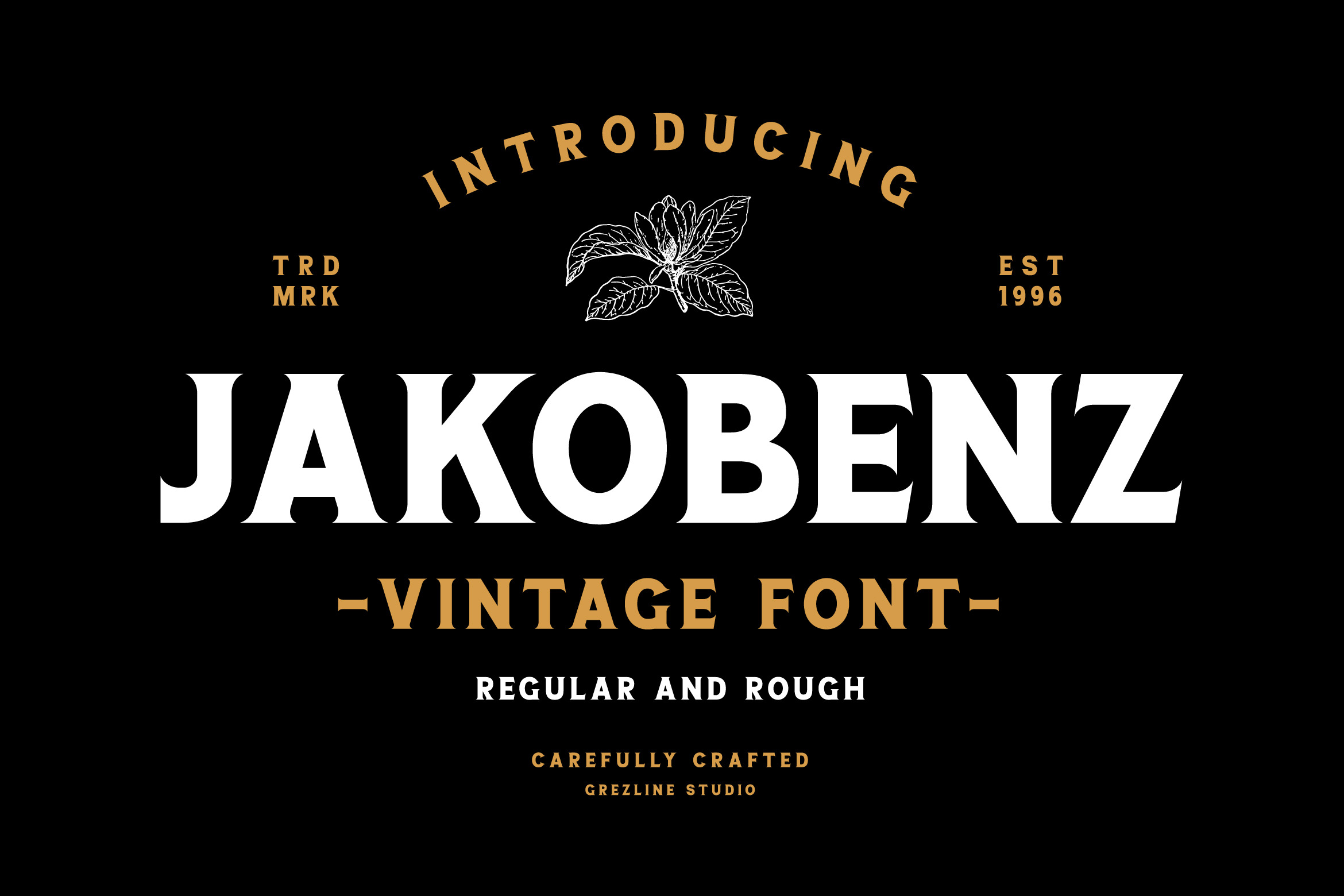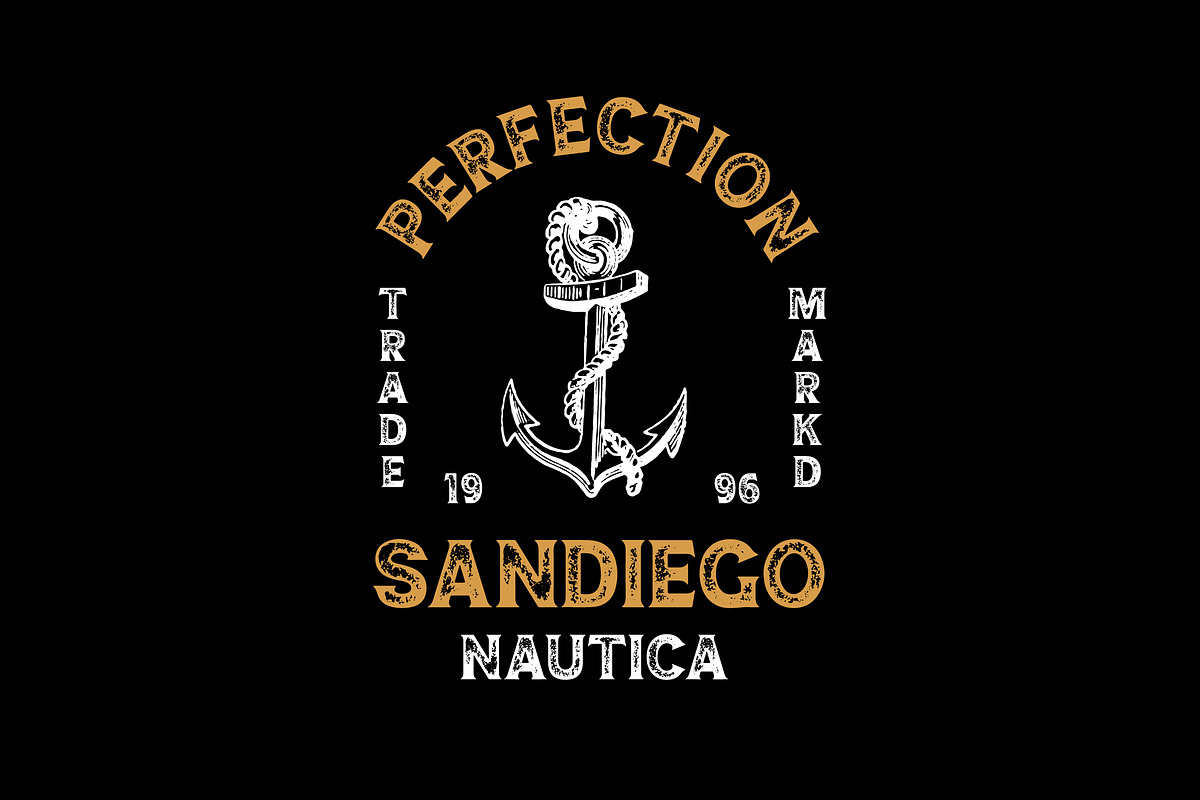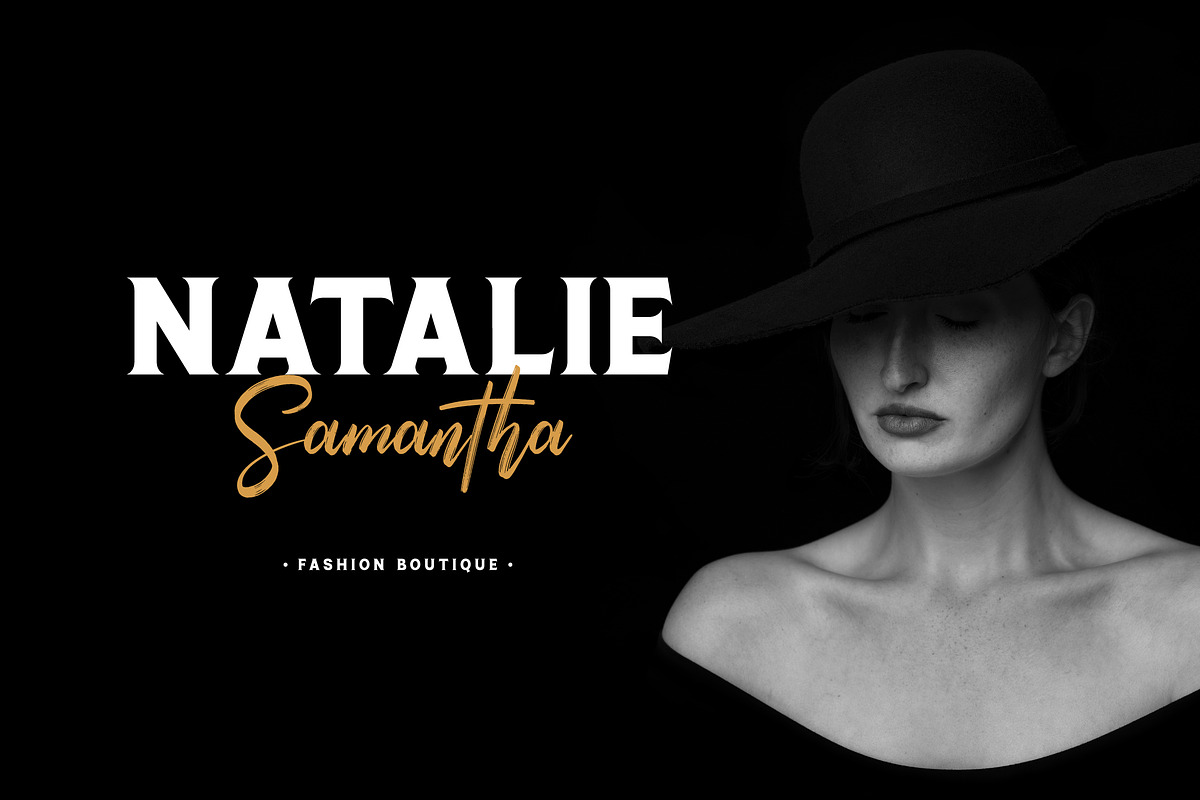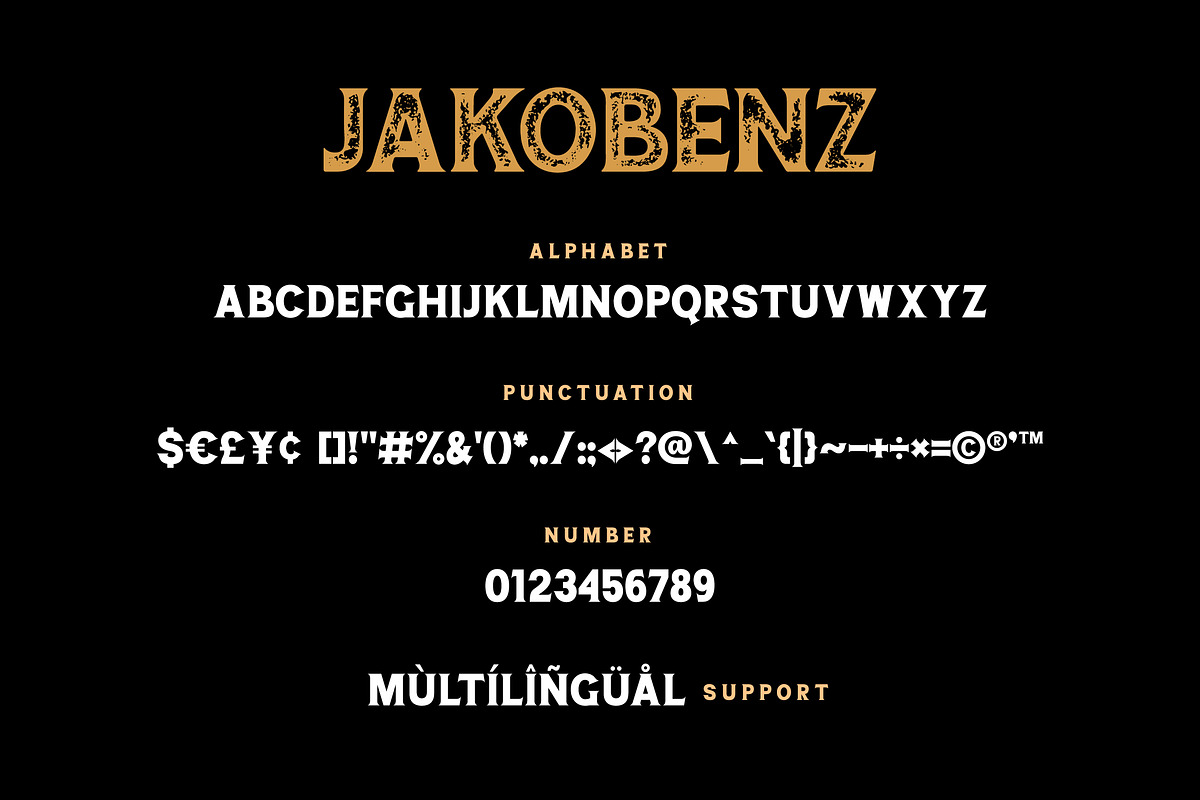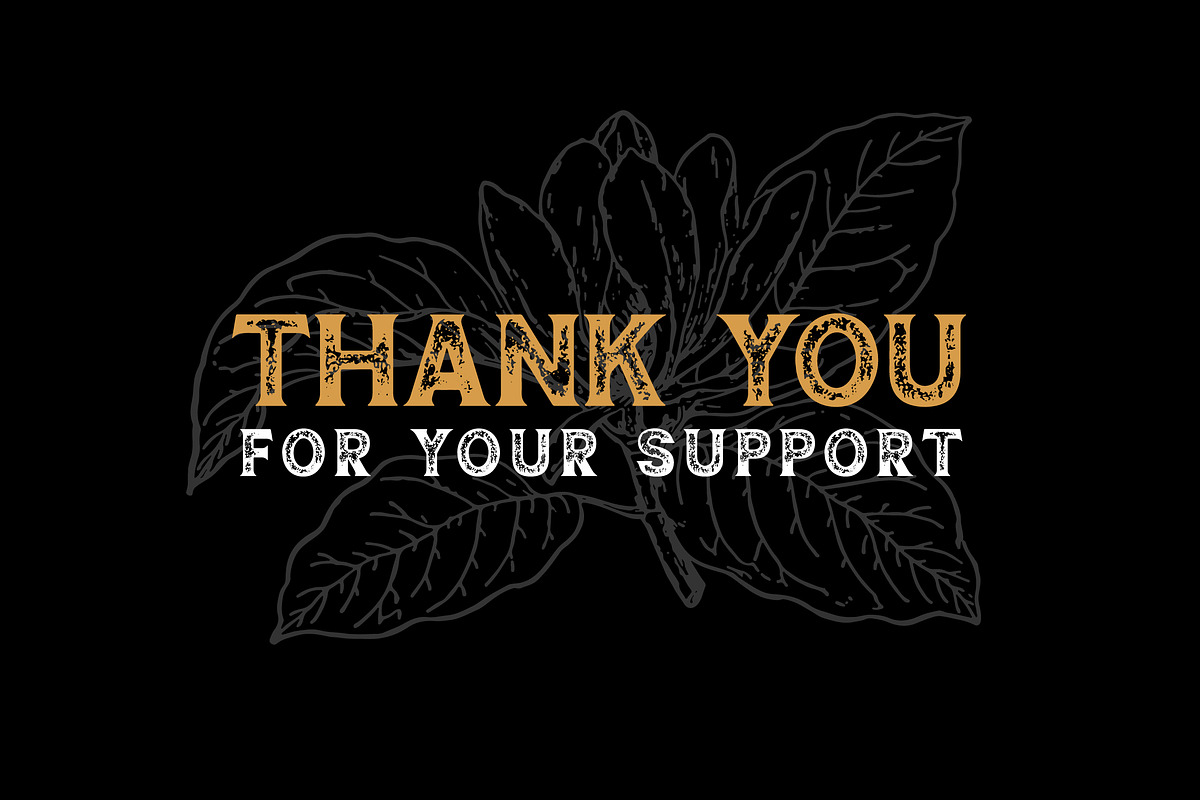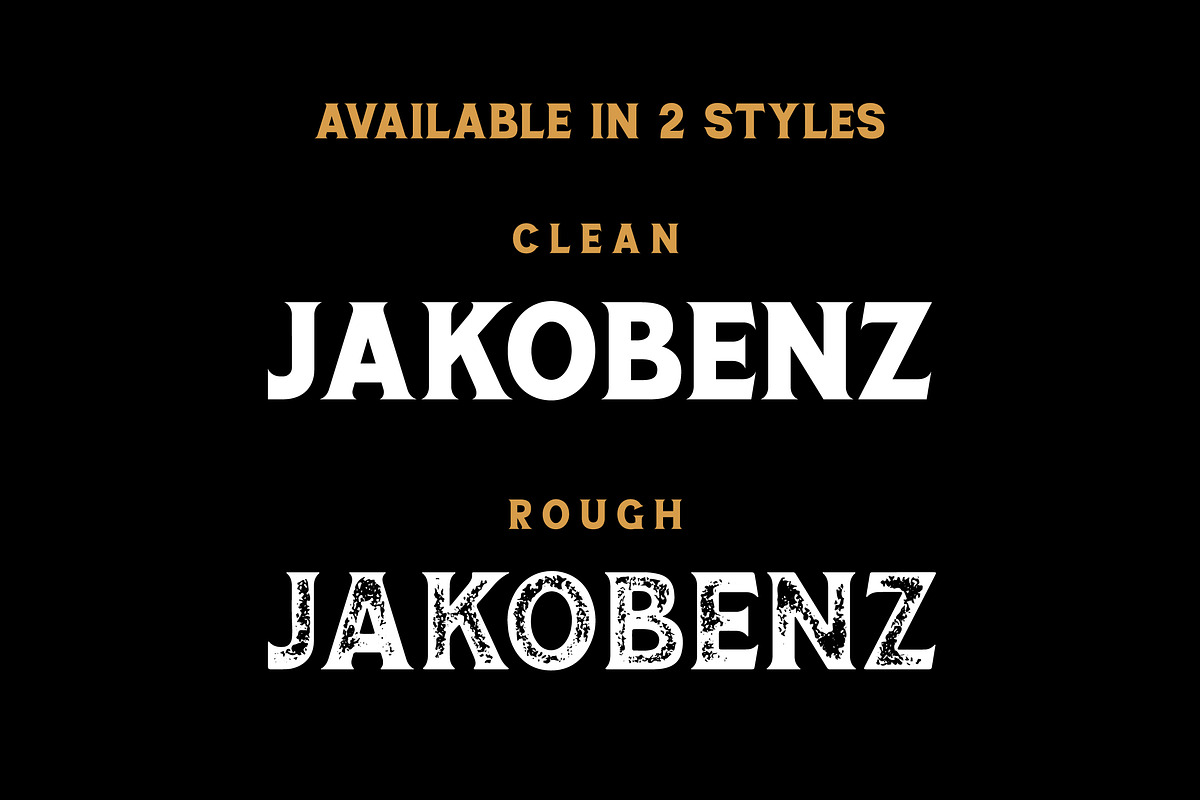
Jakobenz - Vintage Serif Font
Jakobenz is a vintage serif font crafted very carefully, available in two styles : Clean and Rough version. Jakobenz is perfect use for a logo for branding, typography design, badge design, product packaging, invitation, quotes, t-shirt design, label poster, special events and anything that need vintage taste.